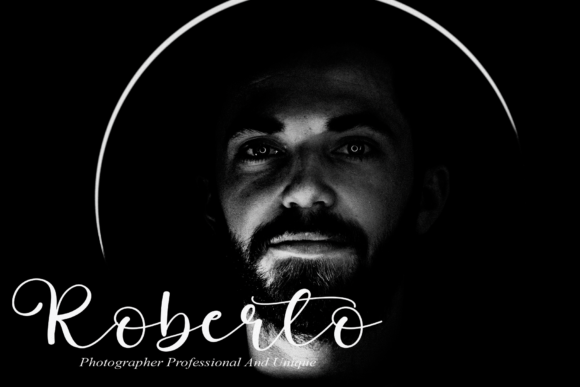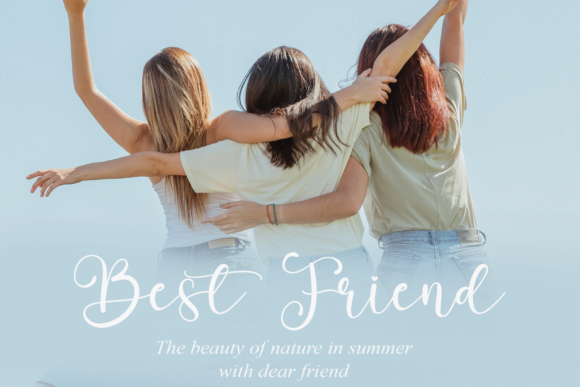
Grinch Font
db-ku.com - Script & Handwritten -- Grinch is a dazzling script font. Whatever the topic, this font will be a wonderful asset to your font library, as it has the potential to enhance any creation.